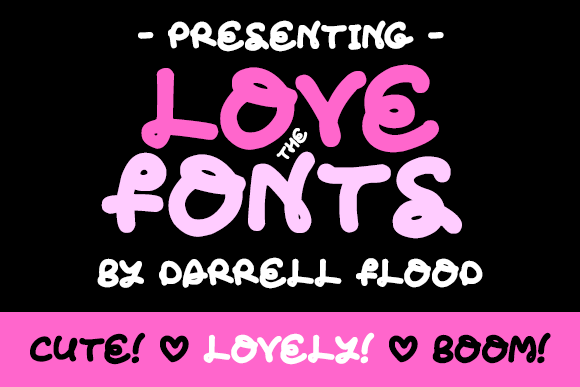
Love the Fonts Font
About Love the Fonts Font
Love the Fonts is a soft, squashy felt-tip font in a curly, carefree style. Perfect for cakes and baking themes!